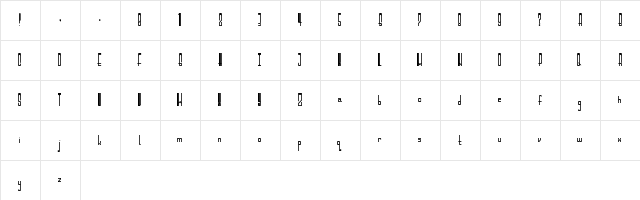
Archway Sans Regular
| Designer | ZeroPunctuation |
Design Context for Archway Sans Typeface
Archway Sans offers clean, dependable letterforms without strong stylistic allegiance, making it a practical choice for designers who need flexibility.